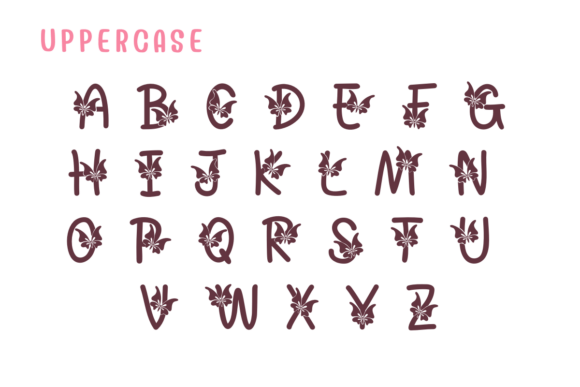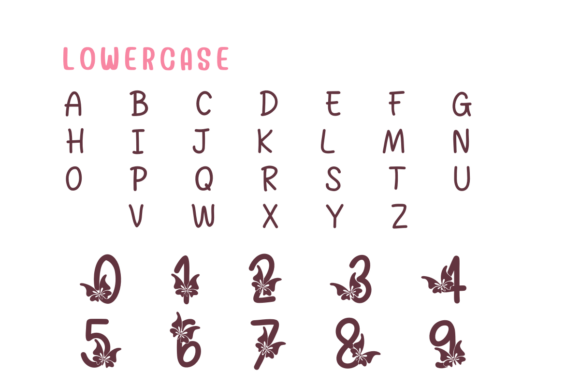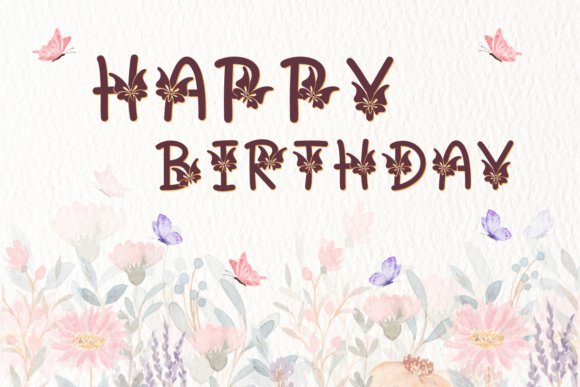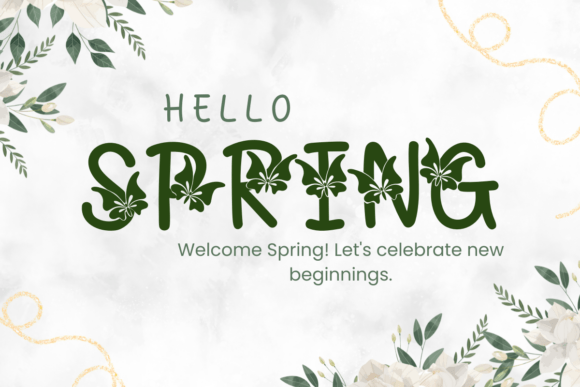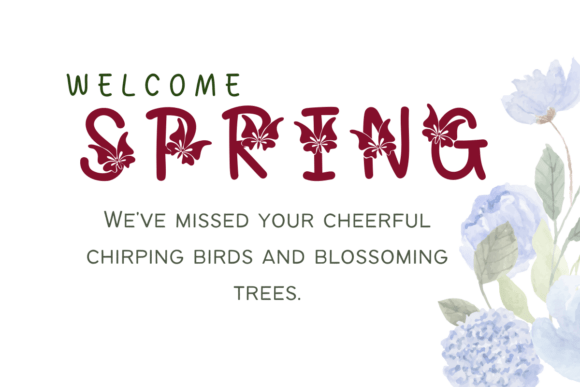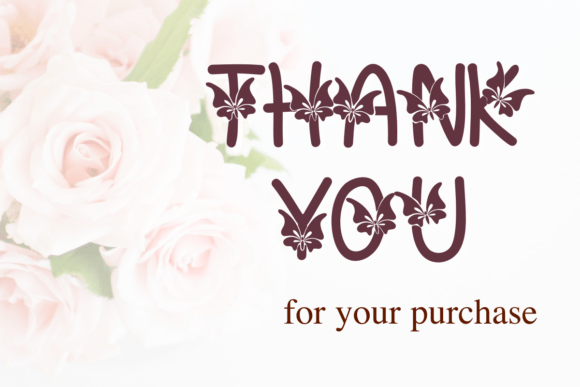
The Magical World of Butterfly Cute Font
Have you ever been working on a design project, and suddenly, you’re stuck on finding the perfect font? I recall a recent experience where I was tasked with creating a whimsical birthday invitation for a client’s little one. The theme was springtime, and I wanted to infuse the design with a sense of wonder and magic. That’s when I stumbled upon the enchanting Butterfly Cute Font! 🦋
A Charming Decorative Font
Butterfly Cute is a charming decorative font that will transport your text to a world of fantasy. Each letter is meticulously adorned with fluttering butterflies, making it perfect for children’s designs, springtime themes, birthday invitations, or any project that needs a sweet and playful vibe.
• ✨ Unique and playful design with butterflies adorning each letter
• ✅ Perfect for children’s designs, springtime themes, and birthday invitations
• 💕 Adds a touch of whimsy and magic to any project
While Butterfly Cute is a delightful font, there are a few things to keep in mind: 🤔
• ⚠️ May not be suitable for formal or professional designs
• ⚠️ Limited use of uppercase letters, as they can appear overwhelming
The Designer Inspiration Behind Butterfly Cute
The creator of Butterfly Cute was inspired by the magical world of butterflies and the joy of childhood. With a passion for designing fonts that bring happiness and wonder, the designer carefully crafted each letter to feature delicate butterflies, resulting in a font that’s both playful and enchanting.